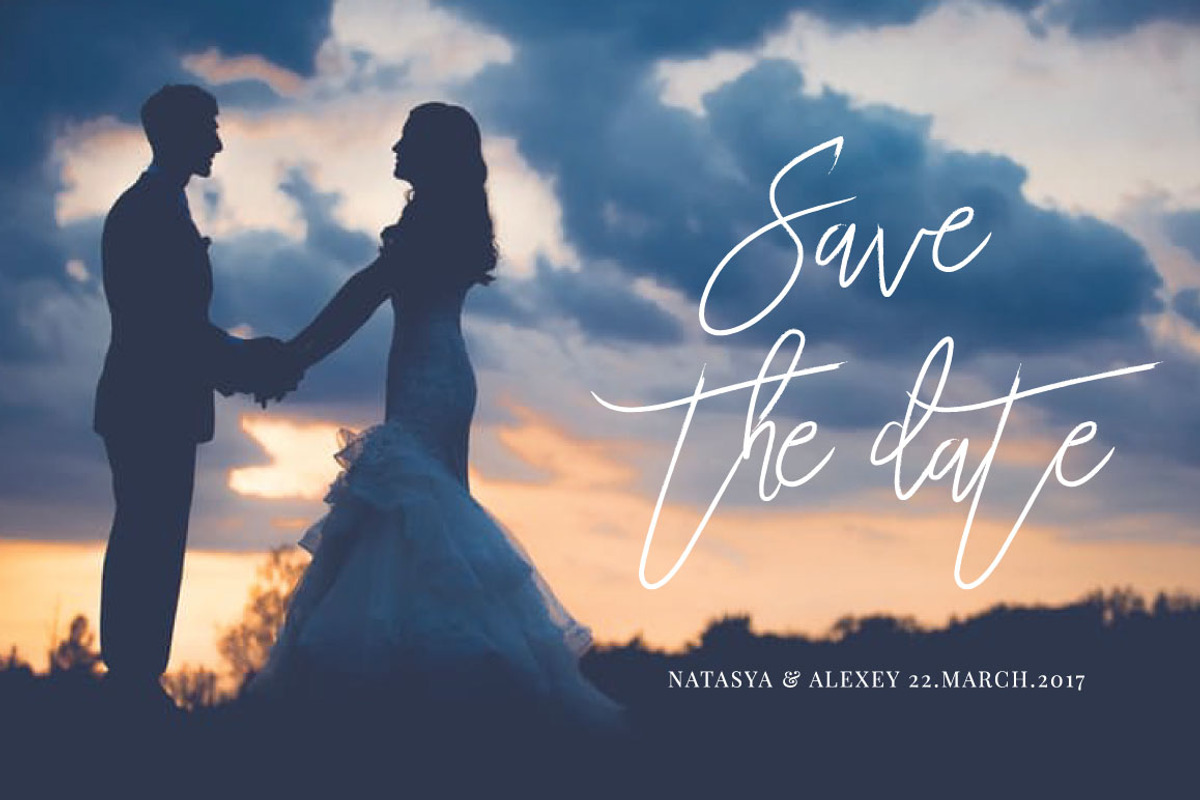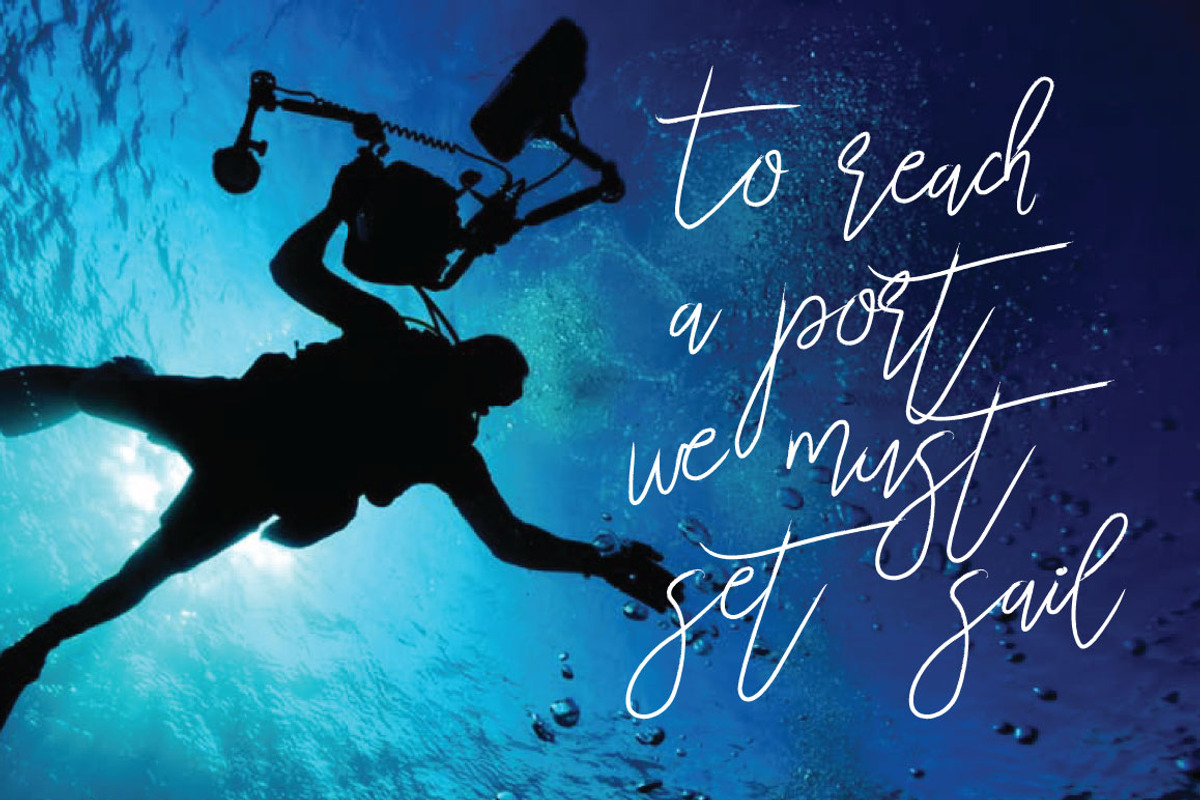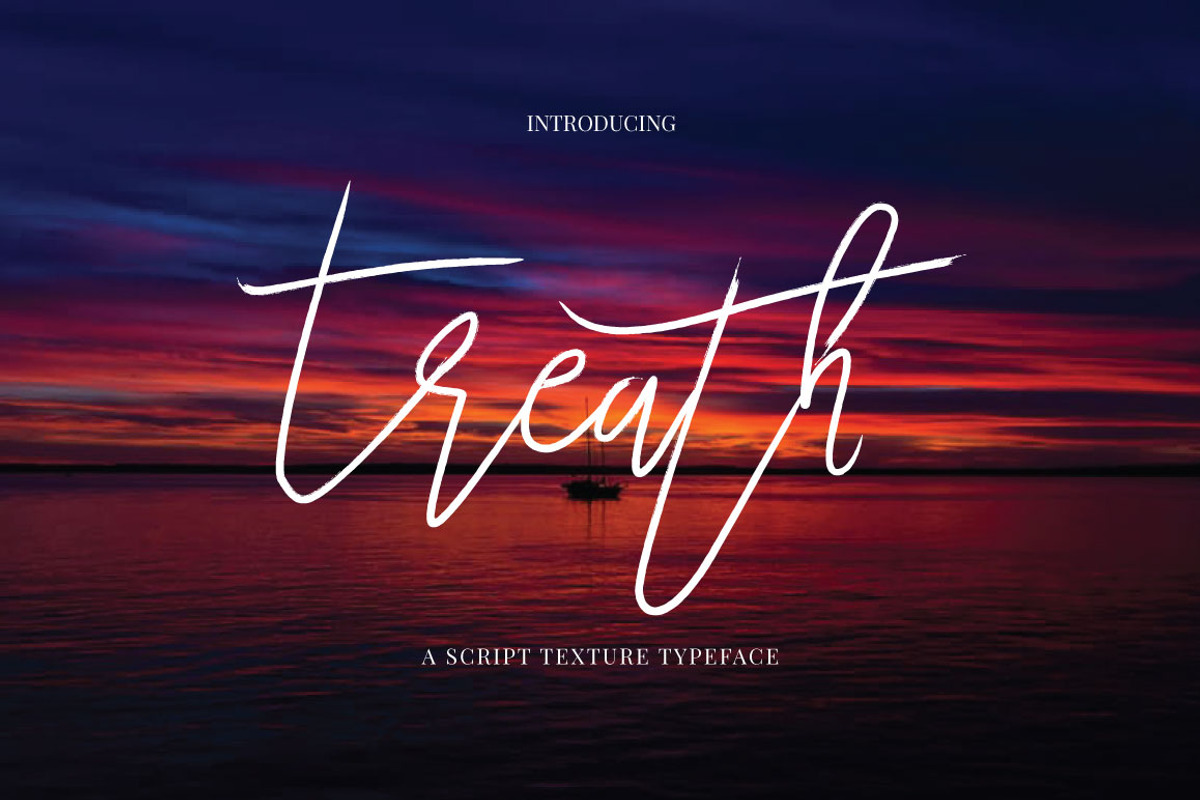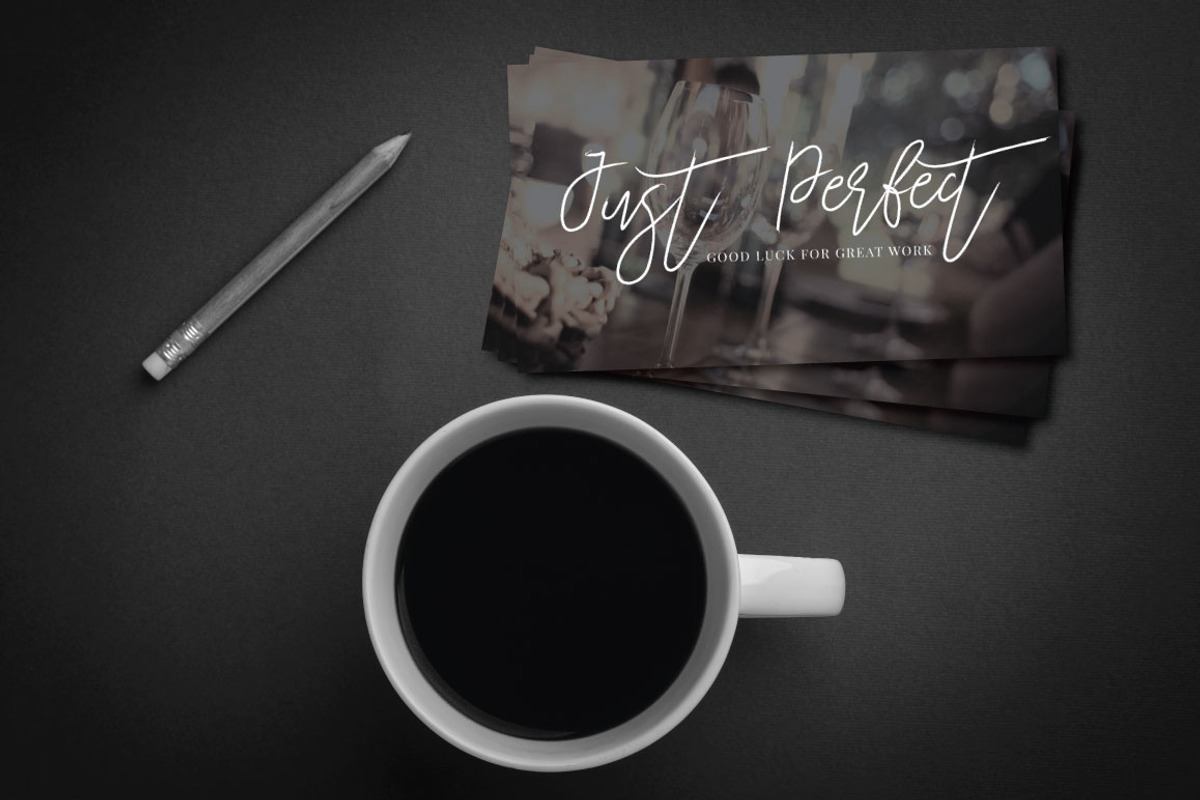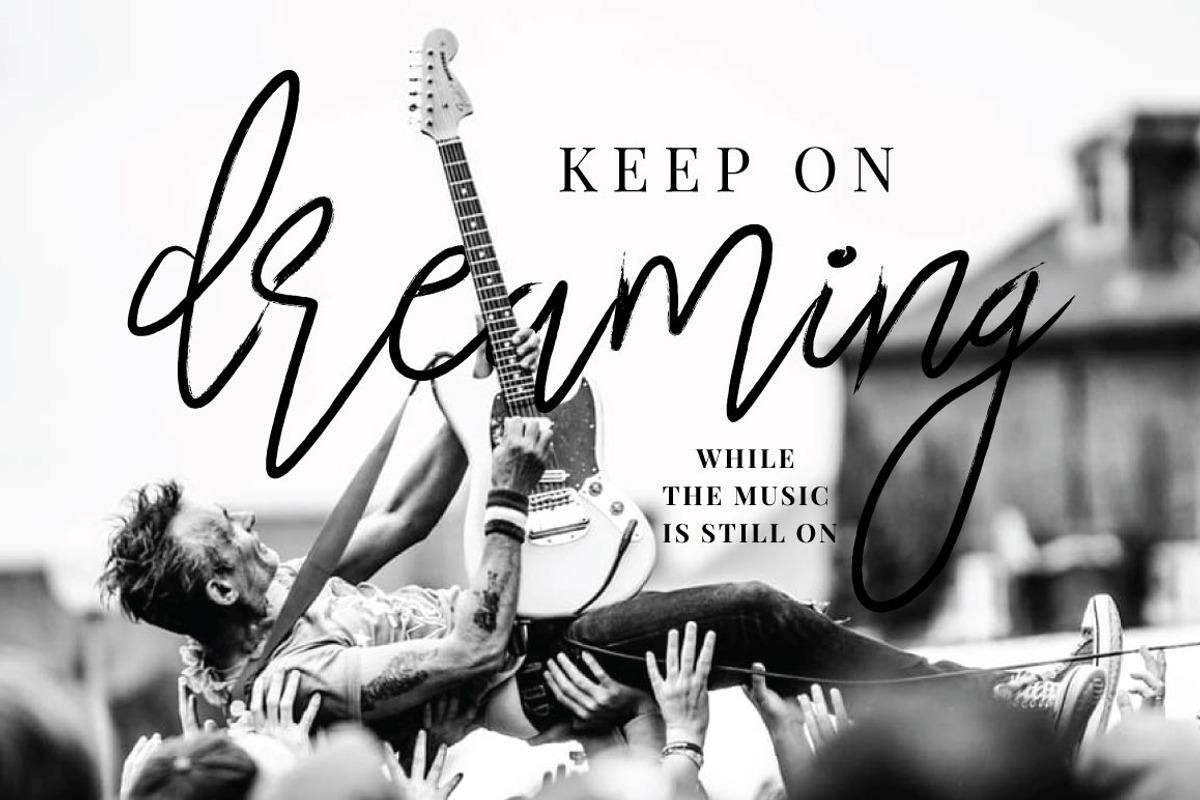
Treath Typeface
Treath is script textured font which imperfect hand written look & just the right amount of brush texture. Balancing between scrawl and rush style to help you create the look of strange custom hand-lettering. Treath is just what you've been looking for!
Use Treath on all of your projects to give it an imperfect hand brushed font. In particular would look great on, branding projects, logos, product packaging, posters, invitations, greeting cards, titles, blogs, everything that includes personal charm and you name it. ;)